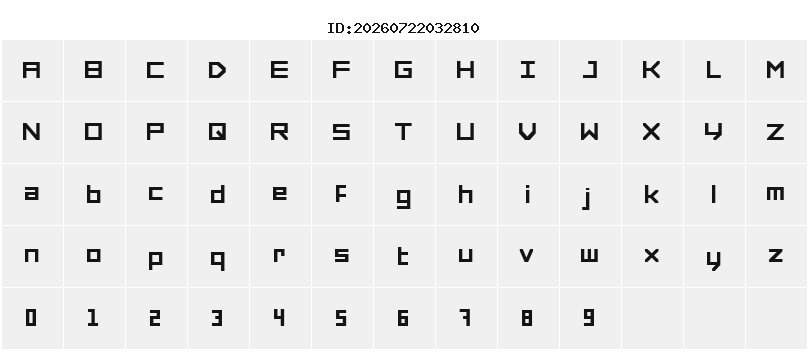
FORCED SQUARE Preview
• Font Name: FORCED SQUARE
• Full Font Name: FORCED SQUARE
• Designer: Paul IJsendoorn
• Manufacturer: Paul IJsendoorn - Drawperfect
About FORCED SQUARE.ttf
FORCED SQUARE.ttf is a modern, elegant sans-serif font designed for ultimate readability and visual harmony. Perfect for branding, headlines, web design, and print materials.